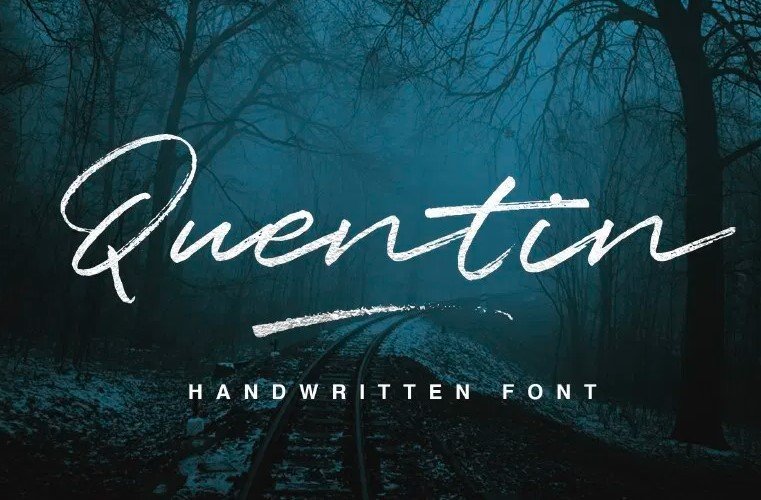
Presenting the eagerly anticipated typeface that will enhance your projects with beauty and elegance. The font is Quentin Script Font, featuring distinct and stylish typefaces that simplify the creation of exceptional projects.
It contains more than 240 glyphs, characters, ligatures, alternates, stylistic sets, and much more other stuff that can easily be integrated in any graphic tool which will make your designs professional looking.